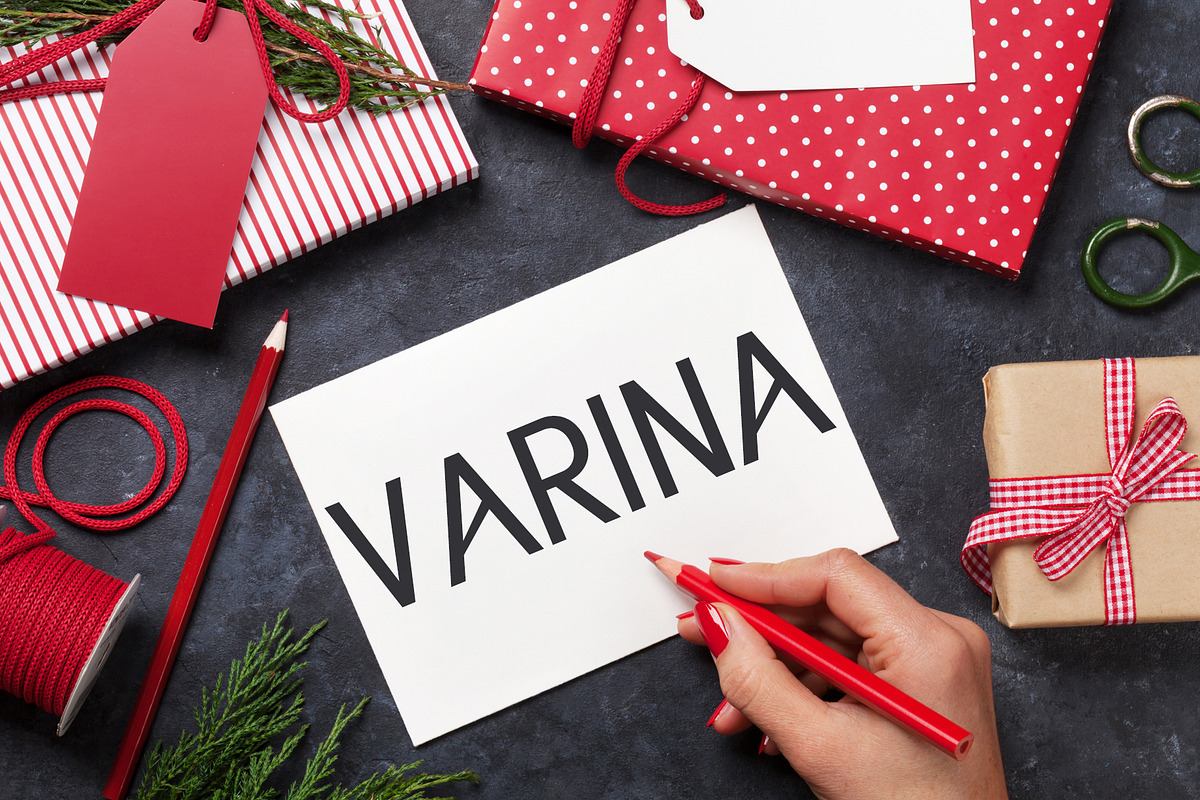
Varina Sans Serif Font Family Free Download
Varina Sans Serif Font Family Free Download is a versatile, clean, and modern typeface designed for both professional and creative projects. Featuring a variety of weights and styles, this font family is ideal for branding, editorial layouts, websites, UI/UX design, and corporate communications. Its geometric structure and balanced proportions give it a timeless, minimalist appeal that works seamlessly across all types of design.
Using the Varina Sans Serif Font Family Free Download brings flexibility and consistency to your typography. Whether you’re crafting a logo, designing a modern website, or working on print materials, Varina offers legibility and style that stands out without overpowering your content.